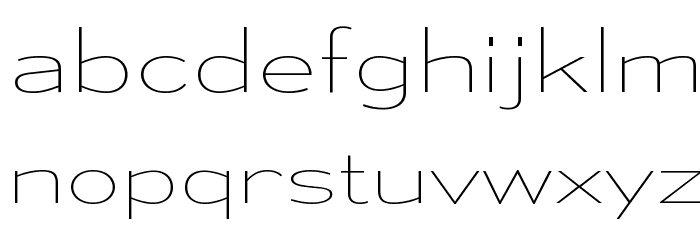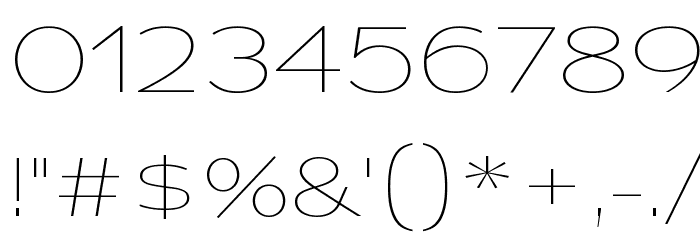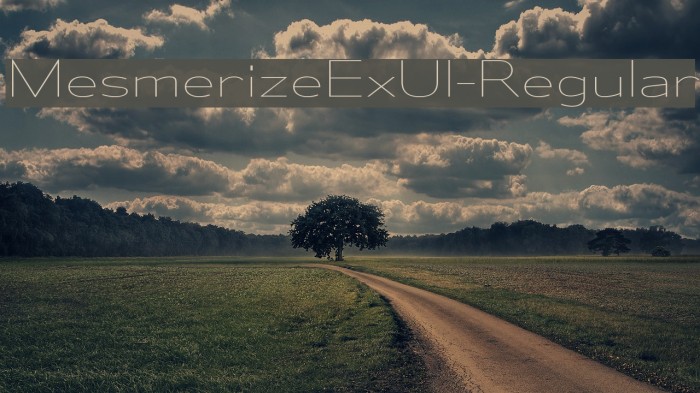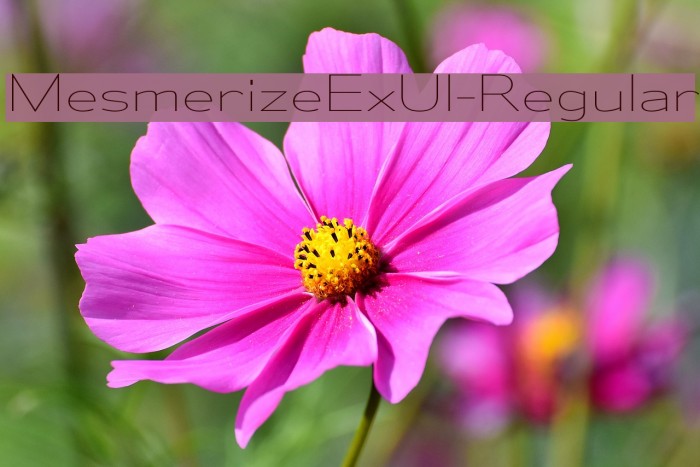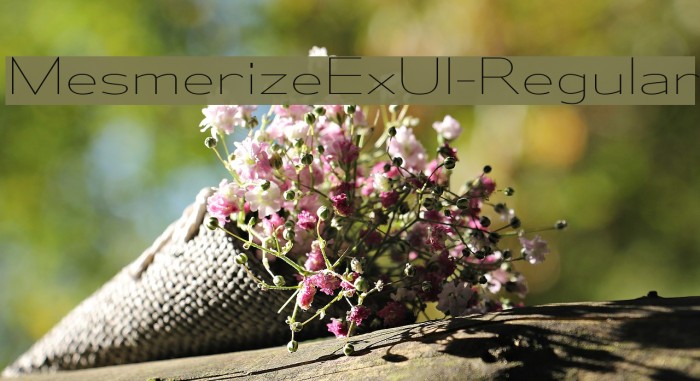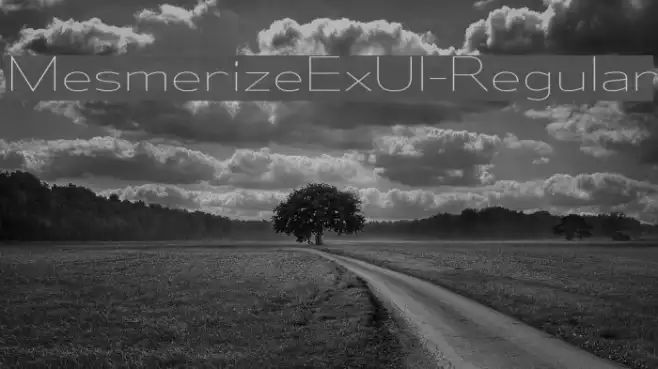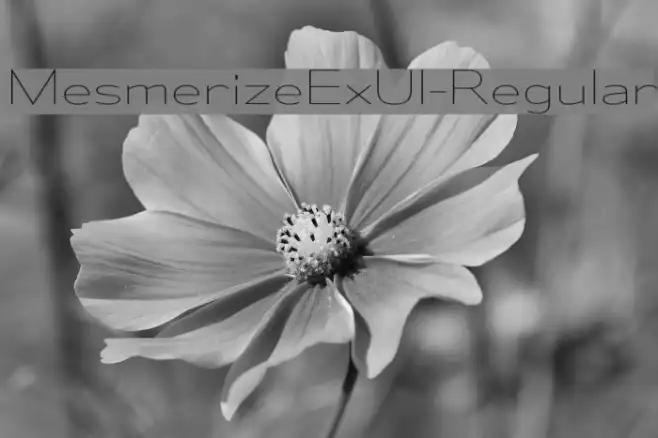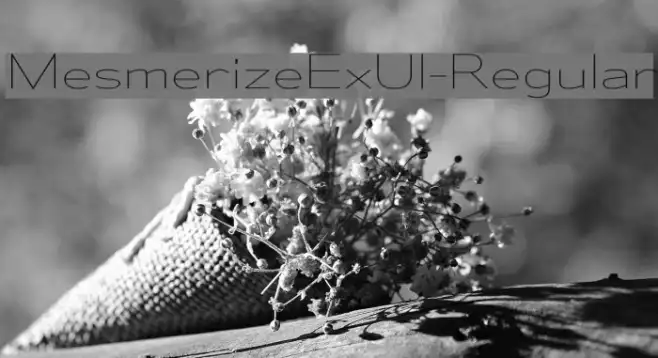
MesmerizeExUl-Regular Font
This font features a clean, geometric design with a modern aesthetic. The characters are sleek and minimalistic, with uniform stroke widths that convey a sense of precision and clarity. The uppercase and lowercase letters maintain a consistent style, emphasizing a harmonious balance between form and function. The numerals are equally refined, offering a seamless integration with the alphabetic characters. Special characters are designed with the same attention to detail, ensuring versatility across various applications. This font's simplicity and elegance make it suitable for a wide range of design projects.
A modern, geometric font with clean lines and uniform strokes.
- Proposed Projects: Ideal for branding, digital interfaces, editorial design, and advertising.
- Category: Sans-Serif
- Weight: Light